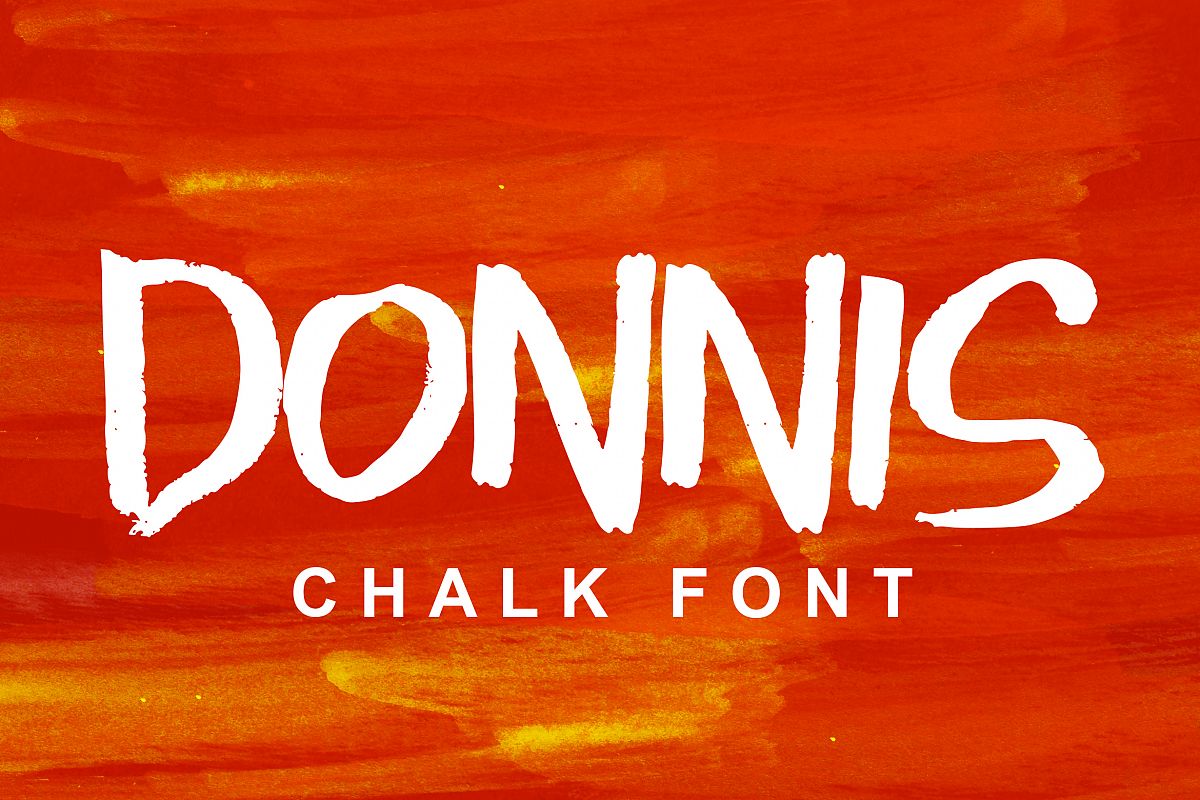
Donnis Chalk Font
Hi, this is donnis font with chalk textured outline , great for poster, logo, advertisement, quotes and clothing design.
This font is All caps, and support basic latin multilingual (AÀÁÂÃÄÅCÇDÐEÈÉÊËIÌÍÎÏNÑOØÒÓÔÕÖUÙÜÚÛWYÝŸÆŒßÞþ )